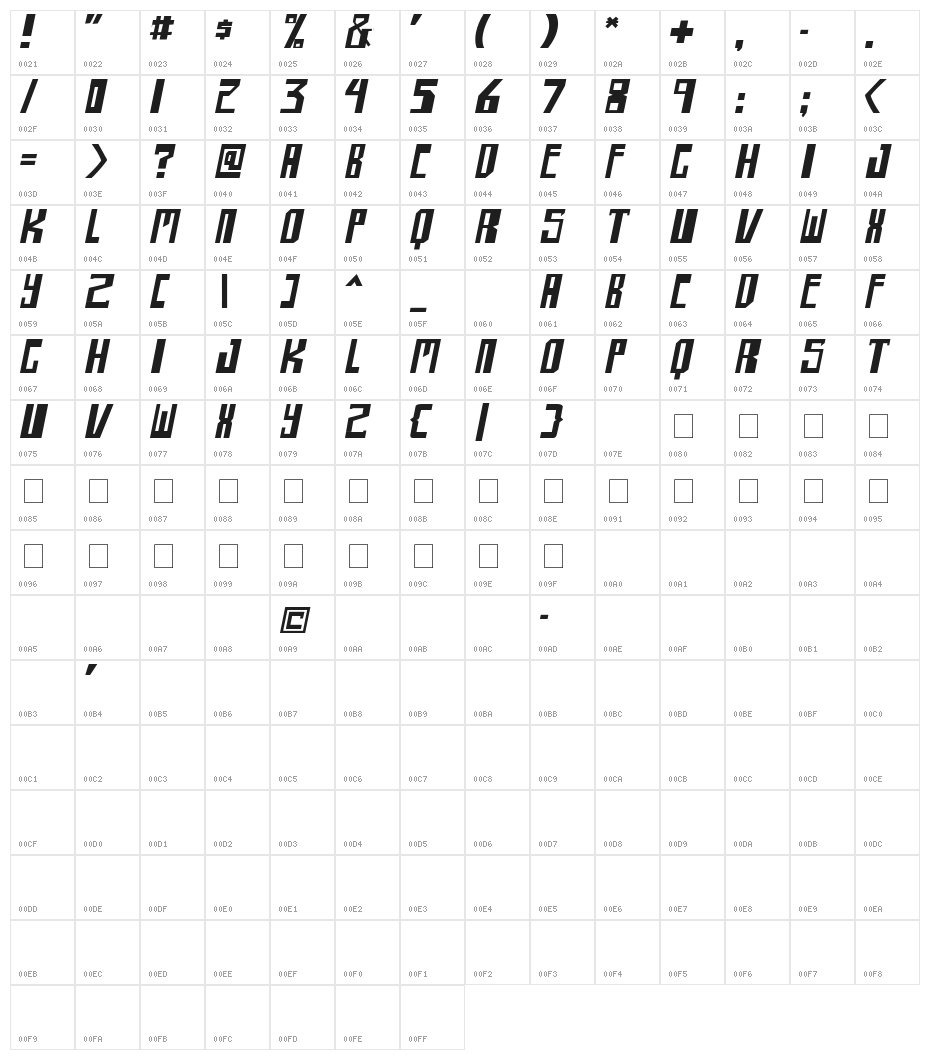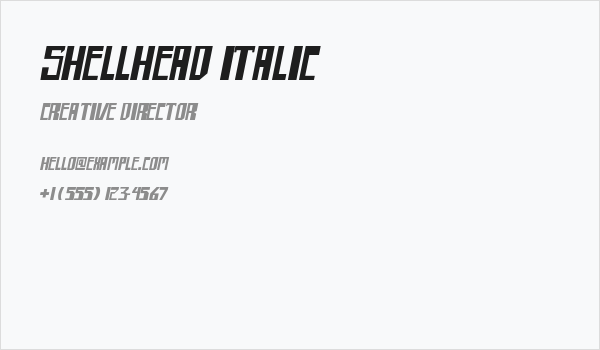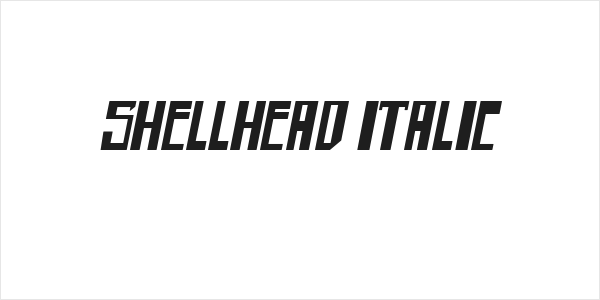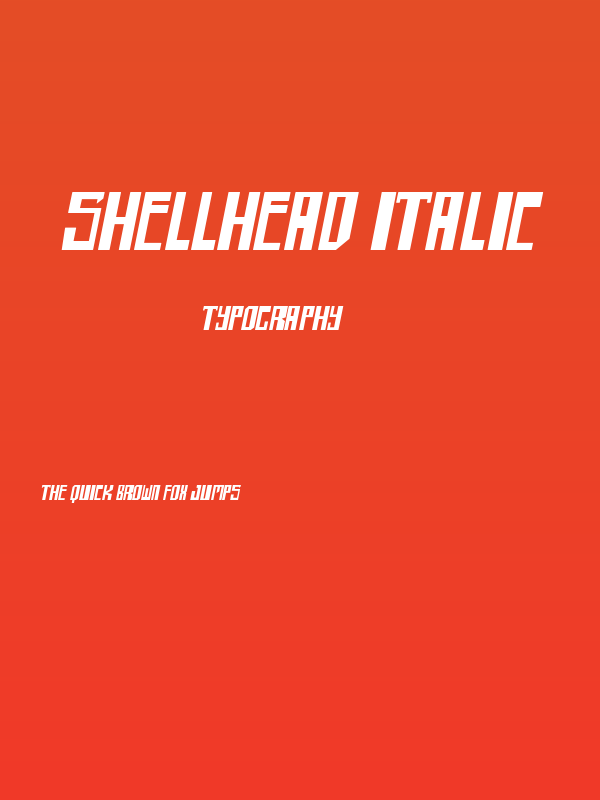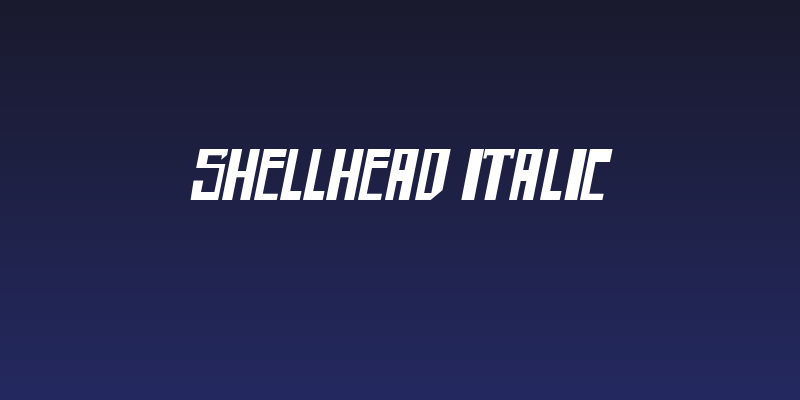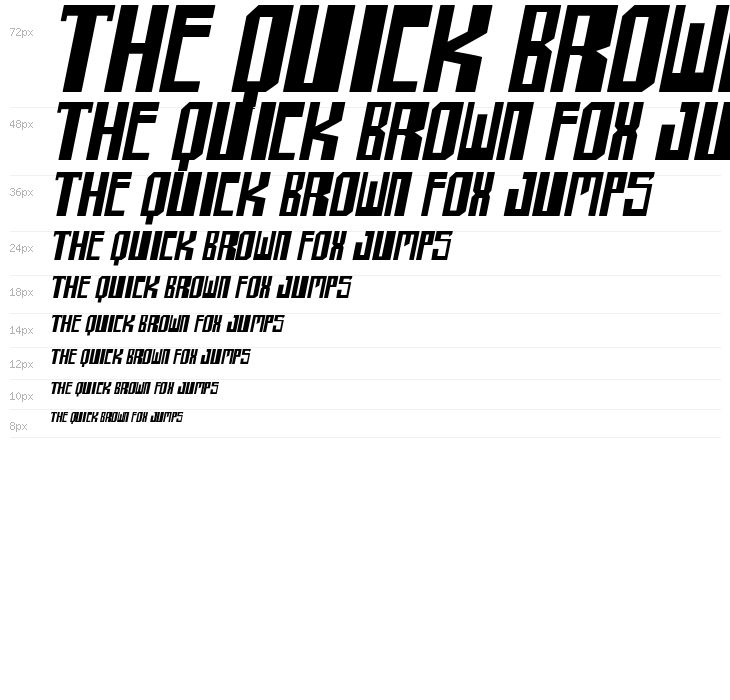
shellhead Italic Font
shellhead Italic Description
This font features a bold, italicized style with sharp, angular edges and a futuristic appearance. The characters are slightly condensed, giving a compact and dynamic look. The uppercase letters are particularly striking, with a strong geometric influence that makes them stand out. The numbers and special characters maintain the same boldness and angularity, ensuring consistency across all glyphs. This font's unique style is both modern and edgy, making it suitable for projects that require a strong visual impact.
| Proposed Projects | Ideal for sci-fi themed designs, video game graphics, posters, and branding that requires a modern and edgy aesthetic. |